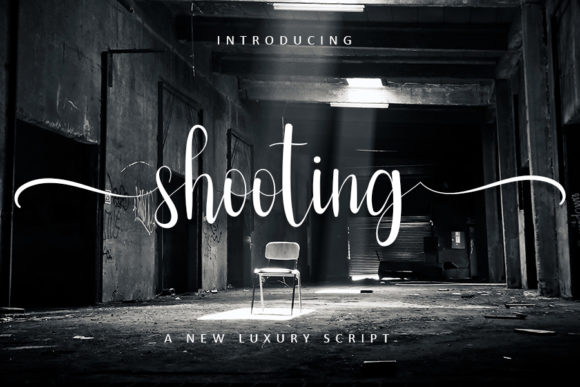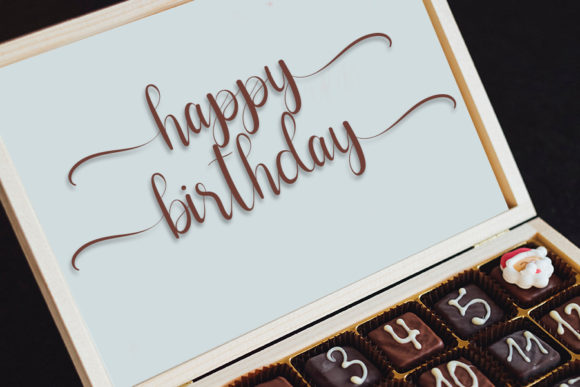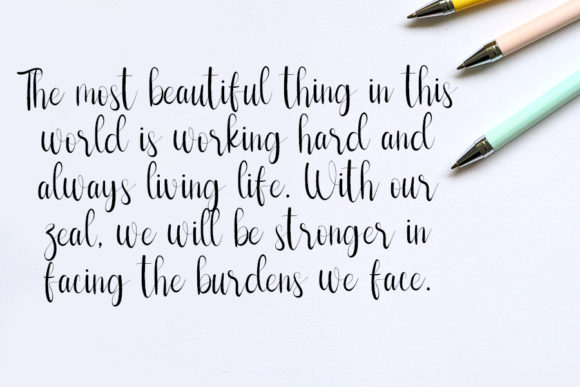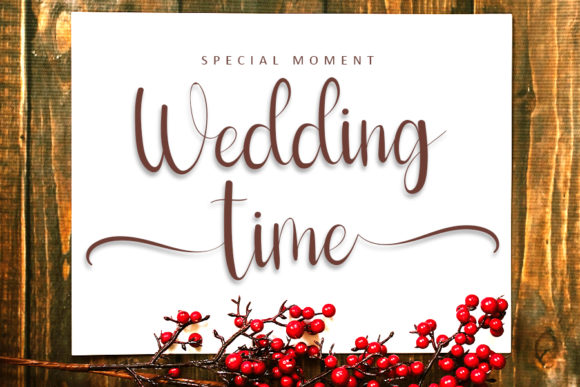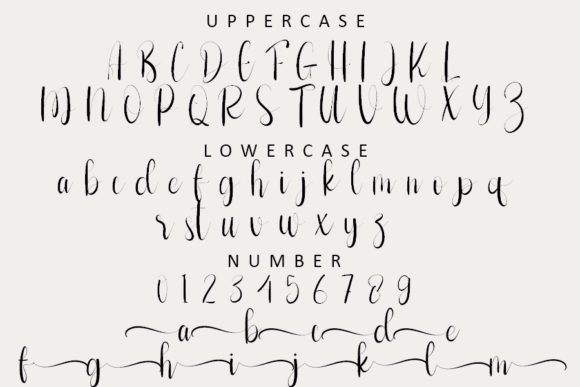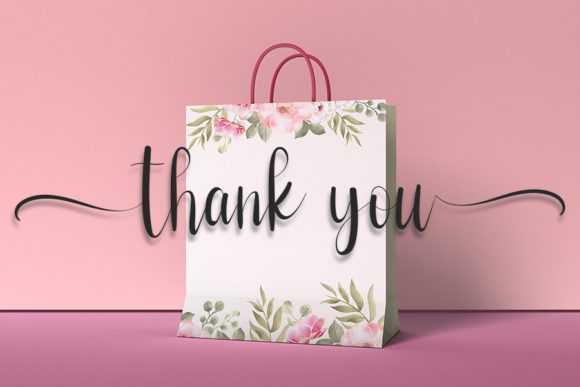
Shooting Font
Introducing “Shooting,” a superb handwritten font that combines a casual and elegant touch. With its versatile style, this font can be the perfect choice for a wide range of design projects.
Shooting captures the essence of a relaxed handwriting style while maintaining an underlying elegance. Its natural and flowing strokes give your text a sense of authenticity and warmth. Whether you’re looking to create a logo, design a wedding invitation, craft a heading, or even print it on t-shirts, Shooting has the flexibility to adapt to different design purposes.
One of the standout features of Shooting is its ability to bring a personal and handcrafted feel to your designs. Its casual charm adds a touch of friendliness and approachability, making it suitable for various contexts. Whether you’re aiming for a professional or a more laid-back look, Shooting strikes a balance that ensures your text stands out while maintaining its legibility.
The versatility of Shooting extends beyond its aesthetic appeal. With PUA encoding, you can effortlessly access all the glyphs and swashes that come with the font. This opens up a world of creative possibilities, allowing you to add flourishes, ligatures, and alternate characters to enhance the visual interest and uniqueness of your designs. The easy access to these additional elements empowers you to truly make your designs stand out.
Shooting is well-suited for a wide range of design projects, including logos, wedding invitations, headings, t-shirts, and much more. Its ability to convey a relaxed yet elegant style makes it adaptable to different themes and industries. Whether you’re working on a modern, minimalist brand or a whimsical and playful design, Shooting can bring your ideas to life.
In summary, Shooting is a superb handwritten font that strikes a balance between casual and elegant. Its versatile style makes it suitable for various design purposes, and with PUA encoding, accessing its wide range of glyphs and swashes is a breeze. Bring a personal touch to your designs, whether it’s a logo, wedding invitation, heading, or t-shirt, with the charming and authentic aesthetic of Shooting.